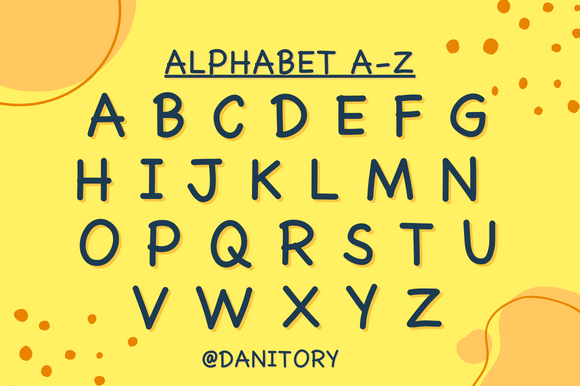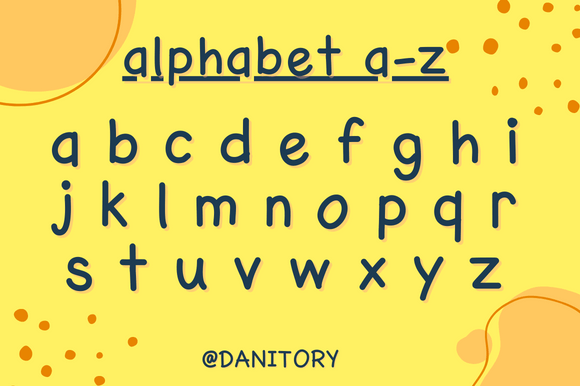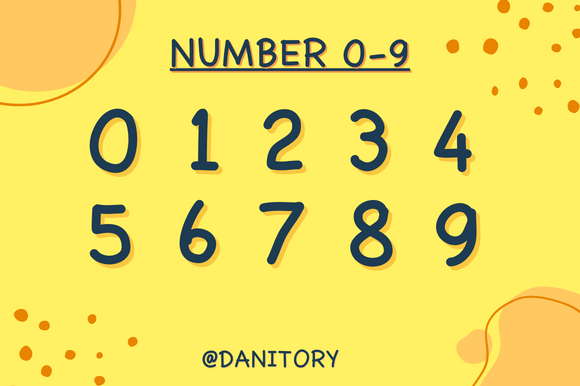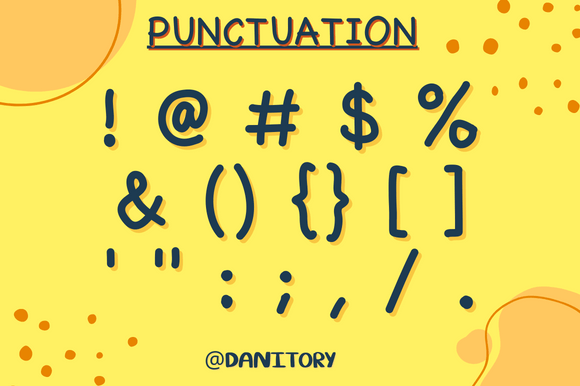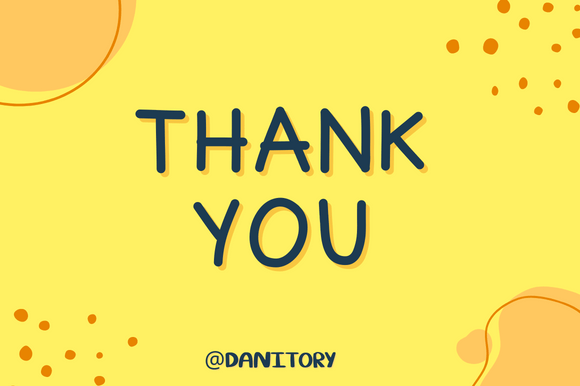
Meet Your New BFF: Danitory Font
Have you ever been stuck on a design project, feeling like your creativity is stuck in neutral? Maybe you’re trying to craft the perfect birthday card, or create a presentation that pops. That’s where the magic of the Danitory Font comes in – a whimsical, handwritten font that’s guaranteed to bring a smile to your face and a spark to your design.
This lovable font is perfect for any creative project, from crafting to digital design, and everything in between. Whether you’re a seasoned pro or a design newbie, the Danitory Font is sure to become your go-to font for any occasion. And the best part? Its playful personality makes it easy to use, even for the most complex designs.
As a designer, you know how valuable it is to have a reliable font that can elevate your work and make it truly special. The Danitory Font is that font, and we’re excited to share its charms with you.
Danitory Font Key Features
- Font Family: Danitory is a unique sans-serif font designed to provide a modern and clean look. It comes in multiple font styles, including regular, bold, italic, and bold italic.
- Resolution: Danitory Font is designed to be scalable, making it suitable for both screen and print use. It supports resolutions up to 1200 DPI.
- Unique Characteristics: Danitory Font features a distinctive x-height and a unique letterform design, which sets it apart from other sans-serif fonts. Its clean lines and minimalistic approach make it ideal for modern designs.
Danitory Font Review
Overall, I think the Danitory Font is a decent addition to any designer’s toolkit. There are a few things that it does particularly well:
- ✨ Unique style: The Danitory Font has a distinct, playful aesthetic that can add some much-needed personality to a project.
- ✨ Versatility: It can work well for a variety of applications, from body text to headings and even display type.
- ✨ Customization: The font includes a range of weights and styles, giving designers the flexibility to tailor it to their specific needs.
- ⚠️ Readability: At smaller font sizes, the Danitory Font can become a bit difficult to read, particularly for those with vision impairments.
- ⚠️ Limited language support: The font may not include as many language-specific glyphs as some other options.
- ⚠️ Overuse: Its playful style can quickly become overwhelming if overused, so it’s essential to balance it with other fonts and design elements.
Overall, I’d say the Danitory Font is a solid choice for designers looking for a unique and versatile font. While it may have some limitations, its strengths make it a worthwhile addition to any toolkit.
For the most out of Danitory Font, use it for titles, headings, and other prominent text elements. It’s ideal for creative and artistic designs, such as posters, brochures, and social media graphics. Avoid using it for large blocks of text, as it may be difficult to read.
Alternatives to Danitory Font
Danitory Font is a modern sans-serif font known for its clean lines and high legibility. However, designers may prefer alternative fonts for specific projects. Here are a few options:
Montserrat is a geometric sans-serif font designed for digital media. It features clean lines and a high x-height, making it suitable for headlines and body text. Montserrat is a popular choice for modern and minimalist designs. Compared to Danitory Font, Montserrat has a more geometric feel and a slightly more condensed width.